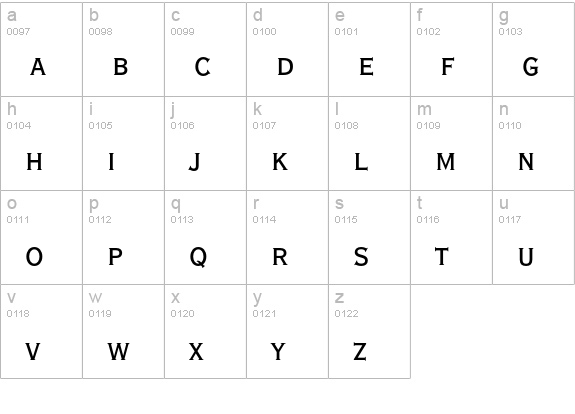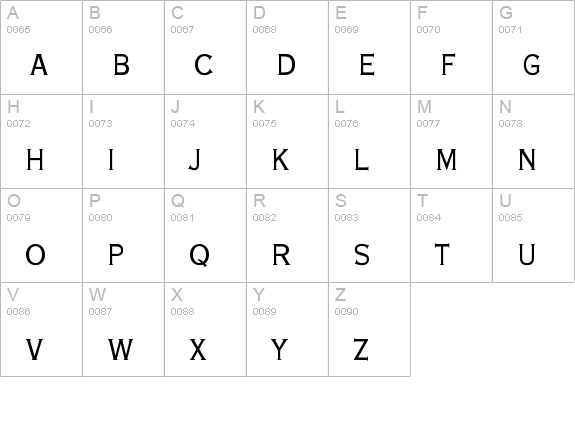
Copperplate Gothic Condensed Font Details
Copperplate Gothic Condensed is a distinctive, condensed-width variant in the Copperplate typeface family \xE2\x80\x94 well suited to design and typography projects.
Copperplate Gothic Condensed font is a timeless classic that exudes elegance and sophistication. Its sleek and streamlined design makes it perfect for conveying a sense of professionalism and refinement in any project. With its condensed style, this font is ideal for fitting more text into limited space without sacrificing readability. What sets Copperplate Gothic Condensed font apart is its versatility - it can be used for a wide range of design applications, from business cards and invitations to signage and packaging. Its bold and commanding presence demands attention, making it a popular choice for headlines and titles. The best part? Copperplate Gothic Condensed font is available for free download at FontsMarket.com, allowing you to elevate your designs without breaking the bank. Don't miss out on this opportunity to add a touch of sophistication to your projects with this timeless font.